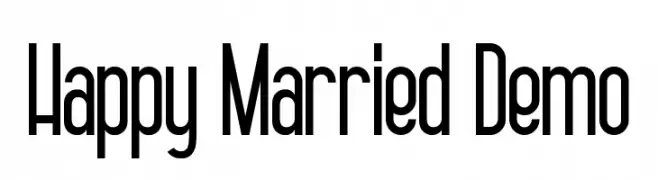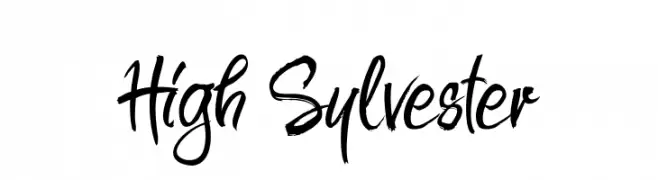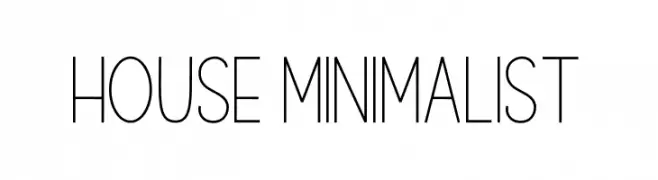
A clean, modern sans-serif font with geometric influences and uniform stroke widths.
A modern, extra condensed sans-serif font with semi-bold weight and tight spacing.
A bold, modern sans-serif font with a clean and strong appearance.
A bold, playful font with rounded, bubbly characters and a whimsical style.
A clean, minimalist font with thin, uniform strokes and a modern aesthetic.
A bold, expressive handwritten font with dynamic strokes and artistic flair.
A clean, minimalist font with thin, uniform strokes and a modern design.
A tall, narrow font with a modern, geometric design and consistent stroke width.
A bold and dynamic script font with fluid, cursive letterforms.
A lively and expressive handwritten font with fluid, dynamic strokes and cursive connections.